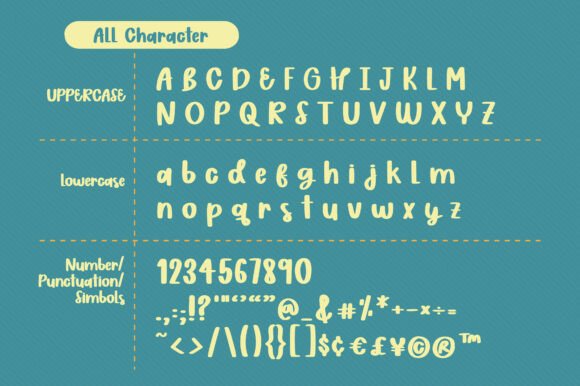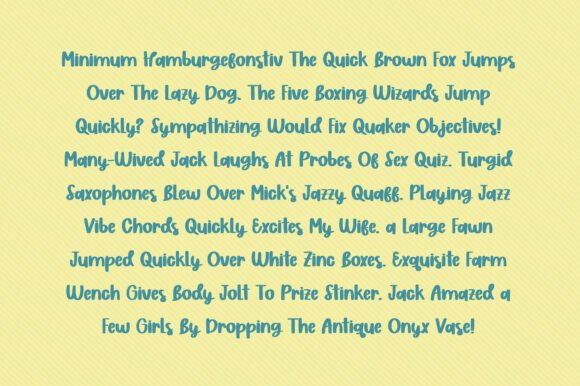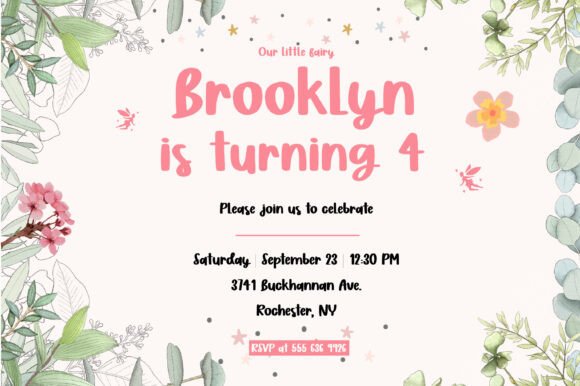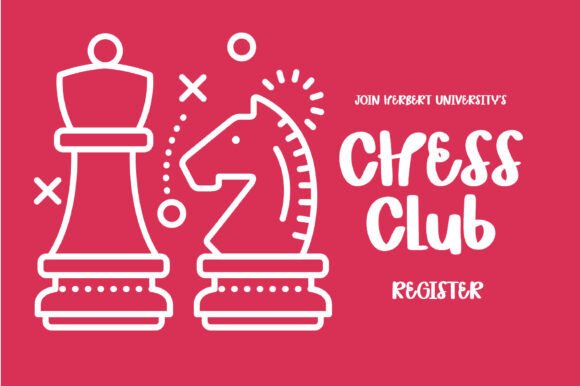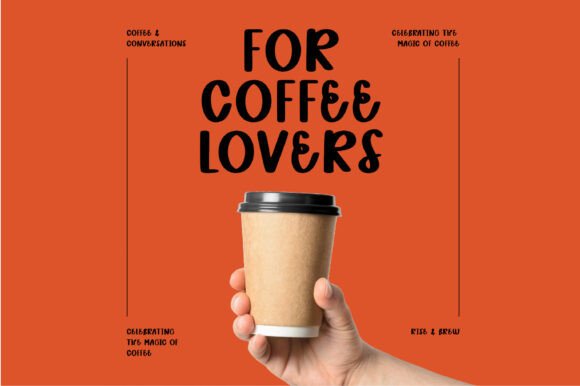
Introducing Champers Font: Elevate Your Digital Creations with Elegance and Charm
Are you on the lookout for a font that combines the fluidity of handwritten script, the sophistication of calligraphy, the modernity of typefaces, and the nostalgia of retro charm? Look no further than Champers Font, a meticulously crafted typeface designed to bring a touch of elegance and beauty to your digital planning, note-taking, and study notes. In this article, we’ll delve into the unique features of Champers Font, its uses, and what makes it a must-have for designers and crafters.
A Perfect Blend of Aesthetics
Champers Font is not just any ordinary font. It’s a perfect blend of handwritten script, calligraphy, modern typeface, and retro charm. This harmonious blend of aesthetics makes it an ideal choice for those who want to add a touch of sophistication and elegance to their digital creations. Whether you’re working on digital collages, notes, or creative projects, Champers Font is sure to enhance your work with its cursive, logo-like elegance and bistro uniqueness.
Key Features of Champers Font
So, what makes Champers Font stand out from the rest? Here are some of its key features:
- Handwritten Script and Calligraphy: Champers Font boasts a beautiful handwritten script and calligraphy style that adds a touch of warmth and personality to your digital creations.
- Modern Typeface: The font’s modern typeface ensures that it looks sleek and contemporary, making it perfect for a wide range of digital applications.
- Retro Charm: Champers Font also has a retro charm that gives it a unique and nostalgic feel, making it ideal for projects that require a touch of vintage flair.
- Digital Quality: As a digital font, Champers preserves its perfect quality in every use, ensuring that your creations look stunning and professional.
Uses of Champers Font
Champers Font is incredibly versatile and can be used in a variety of digital applications, including:
- Digital Planning: Add a touch of elegance and sophistication to your digital planners and organizers.
- Note-Taking: Make your notes stand out with Champers Font’s beautiful handwritten script and calligraphy style.
- Study Notes: Enhance your study notes with Champers Font’s modern typeface and retro charm.
- Digital Collages: Use Champers Font to add a touch of personality and elegance to your digital collages.
- Creative Projects: Champers Font is perfect for a wide range of creative projects, from graphic design to digital art.
In conclusion, Champers Font is a stunning typeface that combines the best of handwritten script, calligraphy, modern typeface, and retro charm. Its elegance, beauty, and versatility make it a must-have for designers and crafters who want to elevate their digital creations. With its OTF and TTF formats, digital quality, and personal use license, Champers Font is the perfect choice for anyone looking to add a touch of sophistication and charm to their digital planning, note-taking, and study notes. So why wait? Get your hands on Champers Font today and experience the luscious strokes and stylish curves that make it so unique!